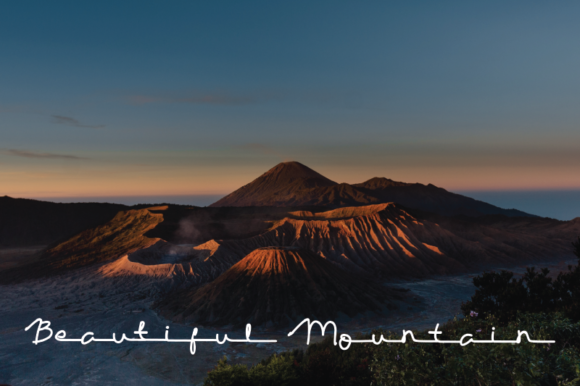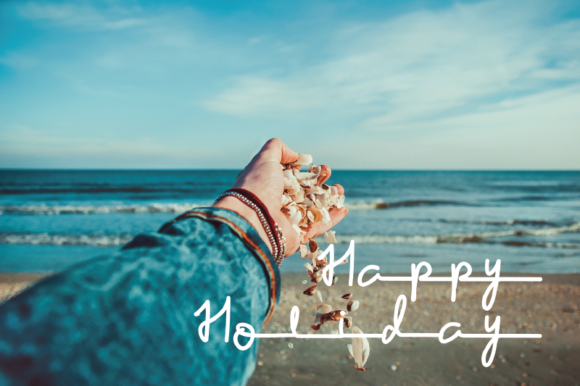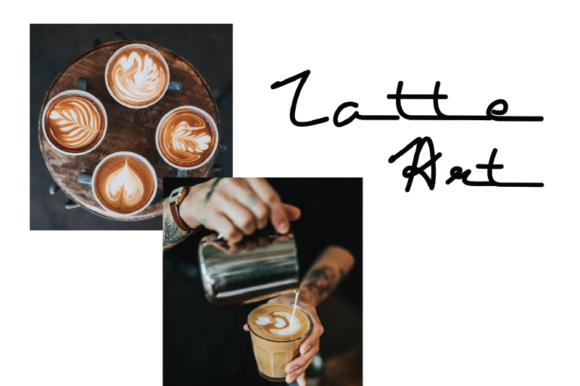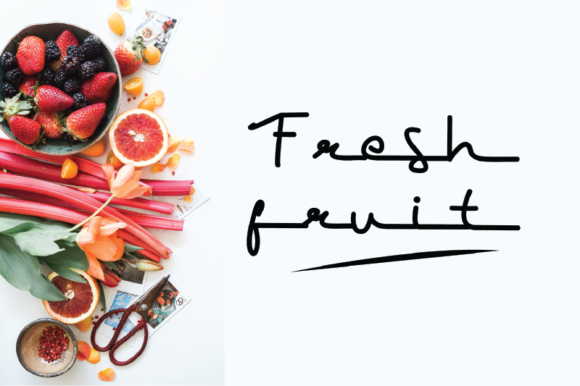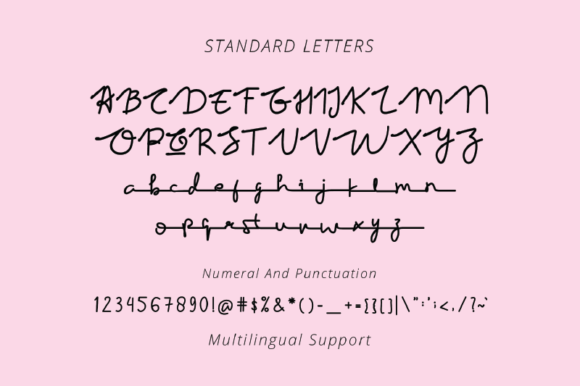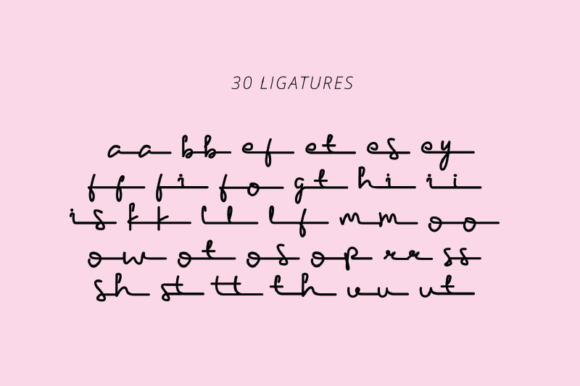
The Purr-fect Font for Your Next Craft Project
As you sit at your craft table, surrounded by glue, scissors, and an endless supply of colorful paper, the creative juices start to flow. You’ve got a great idea for a handmade card or a personalized gift, but something’s missing – that special touch that sets it apart from the rest. This is where the British Cat Font comes in, adding a dash of elegance and whimsy to your project.
This fun and playful script font features a strong, straight baseline that gives it a sense of sophistication, while its furry and fun design elements make it perfect for adding a bit of personality to your craft ideas. Whether you’re a seasoned designer or a crafty beginner, the British Cat Font is a valuable addition to your toolkit, offering endless possibilities for creative expression.
British Cat Font Key Features
- Unique Characteristics: British Cat Font features a unique, whimsical design with bold lines, playful shapes, and adorable cat silhouettes, making it perfect for cat lovers and designers looking for a distinctive font.
British Cat Font Review
Overall, I’m impressed with the British Cat Font’s playful and whimsical nature ✨. It’s a great choice for projects that require a touch of personality and fun. The font’s irregular shapes and slanted letters give it a unique, hand-drawn feel that’s sure to stand out.
The font’s character set is extensive, with a wide range of punctuation and special characters available ✨. This makes it a solid choice for designers who need to create text-heavy content.
- Unique, hand-drawn feel
- Extensive character set
- Great for projects that require a touch of personality
- May not be suitable for formal or professional projects
- Can be difficult to read at small font sizes ⚠️
- Lack of consistency in letter spacing and width
Overall, I’d recommend the British Cat Font for projects that require a lighthearted and playful touch ✨. While it may not be suitable for all types of projects, it’s a great choice for designers who want to add some personality to their work.
British Cat Font is perfect for adding a whimsical touch to your designs. Use it for:
- Children’s book covers
- Party invitations
- Web graphics
- Print ads